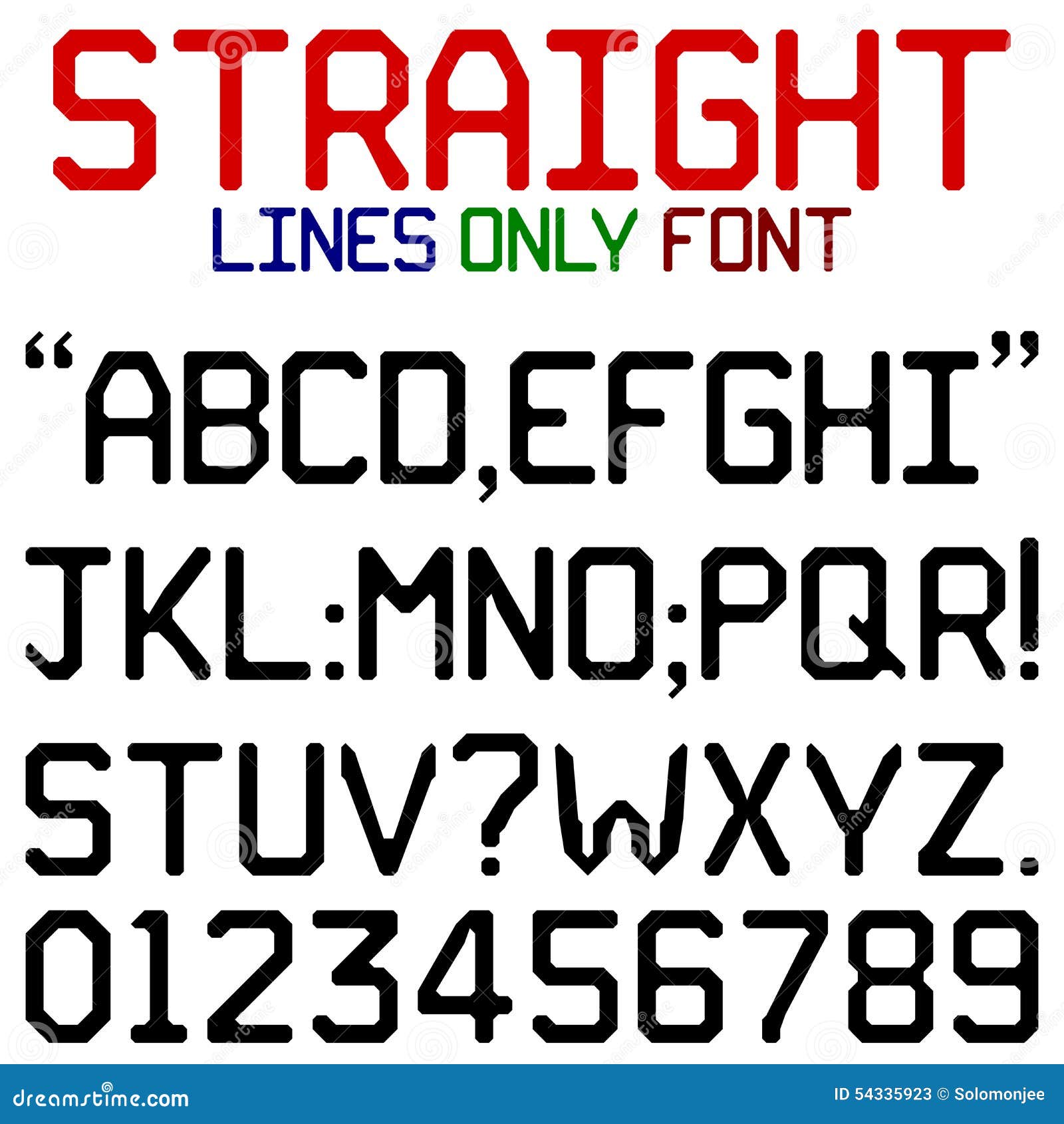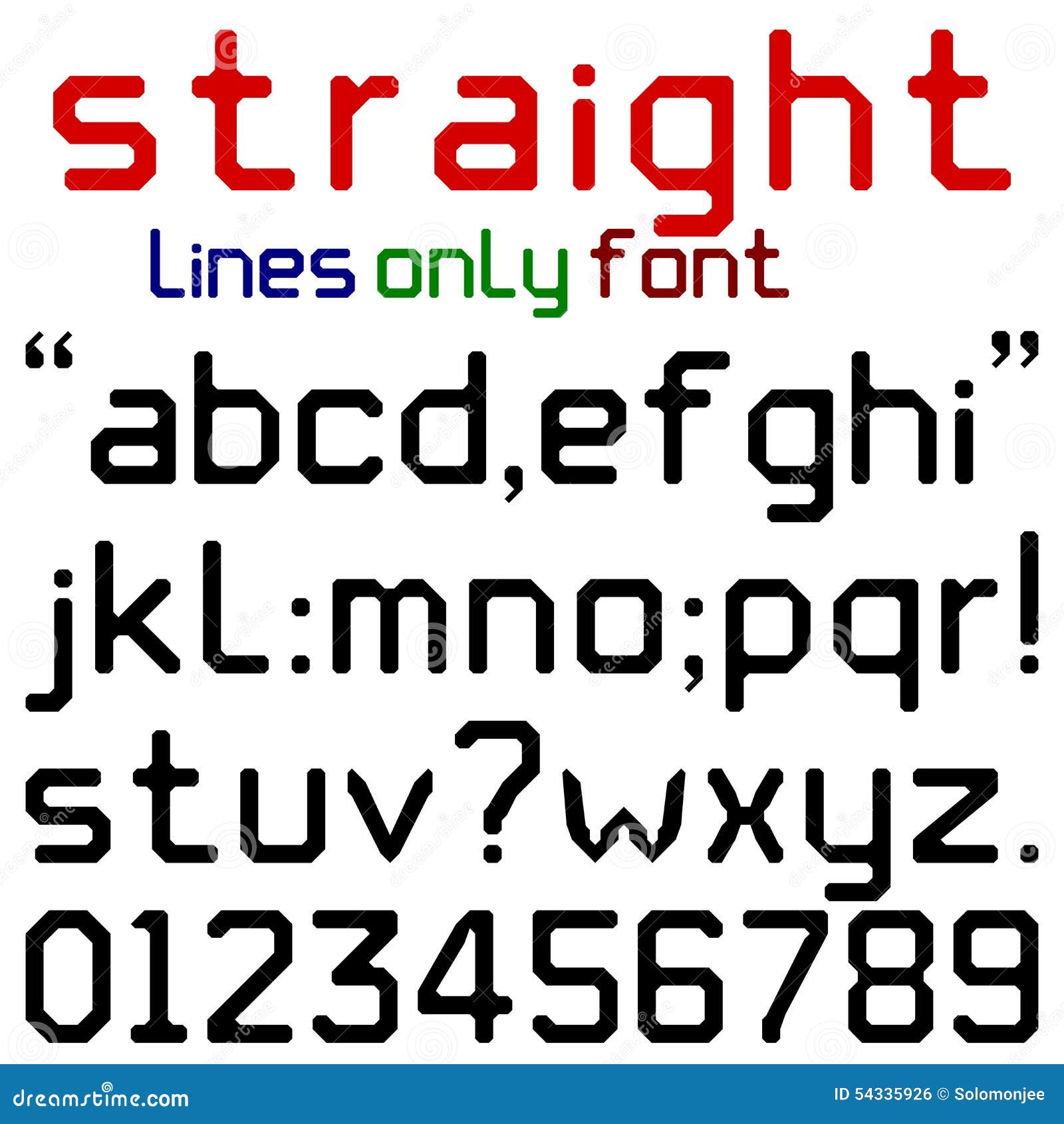
Font Straight Lines
Font Straight Lines - Click to find the best 62 free fonts in the straight style. Discover a world of captivating typography for your creative projects. Line fonts inspired by minimalist design principles, each letter is composed of clean, straight lines, creating a sleek and. Looking for straight lines fonts? Click to find the best 13 free fonts in the straight lines style. Every font is free to download! Explore straight lines fonts at myfonts. If you meant only straight lines allowed and no curves, then bank gothic is probably more in line with what you're looking for. Unleash your design potential today!
Click to find the best 13 free fonts in the straight lines style. Line fonts inspired by minimalist design principles, each letter is composed of clean, straight lines, creating a sleek and. Looking for straight lines fonts? Copy and paste line symbol like straight line ( ─ ), vertical line ( │ ), horizontal line emoji ( ⎯ ), light diagonal upper left to lower right ( ╲ ), light. Unleash your design potential today! Every font is free to download! Explore straight lines fonts at myfonts. If you meant only straight lines allowed and no curves, then bank gothic is probably more in line with what you're looking for. Every font is free to download! Click to find the best 62 free fonts in the straight style.
Straight Lines Font stock vector. Illustration of type 54335926
Straight Lines Font Stock Vector Image 54335923
Regular stylish font with straight lines only Vector Image
Straight Lines Font Stock Illustrations 222 Straight Lines Font Stock
Straight Line Font Fontspring
Unleash your design potential today! Explore straight lines fonts at myfonts. Discover a world of captivating typography for your creative projects. Every font is free to download! Click to find the best 62 free fonts in the straight style.
Single Line Fonts
Explore straight lines fonts at myfonts. Discover a world of captivating typography for your creative projects. Click to find the best 62 free fonts in the straight style. If you meant only straight lines allowed and no curves, then bank gothic is probably more in line with what you're looking for. Line fonts inspired by minimalist design principles, each letter.
Alphabet straight lines font Premium Vector
Copy and paste line symbol like straight line ( ─ ), vertical line ( │ ), horizontal line emoji ( ⎯ ), light diagonal upper left to lower right ( ╲ ), light. Click to find the best 62 free fonts in the straight style. Every font is free to download! Discover a world of captivating typography for your creative.
Straight Line Font A Practical Guide
Every font is free to download! Click to find the best 62 free fonts in the straight style. Looking for straight lines fonts? Line fonts inspired by minimalist design principles, each letter is composed of clean, straight lines, creating a sleek and. Explore straight lines fonts at myfonts.